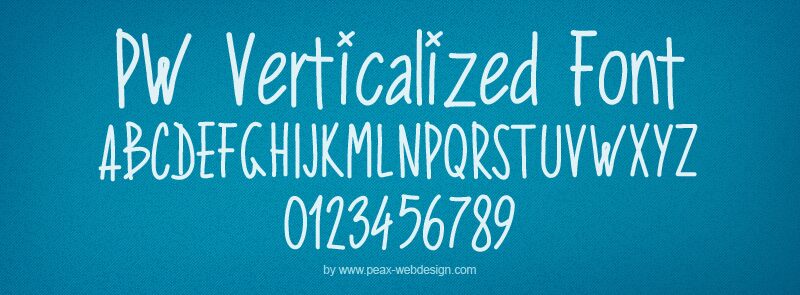
PW Verticalized by Peax Webdesign is a free handwritten display font with extremely tall, narrow letters, rounded bends, and an unusually loose monoline structure. Uneven joins and quirky crossbars keep the lanky forms visibly loose and quick.
Loose line drawings and doodled figures share the font's thin, wavering marks, making it a natural fit for illustrated posters and album artwork. It can also shape youth-oriented fashion branding, where the towering proportions resemble a custom marker-written logo. Festival graphics and informal cafe packaging offer two more convincing settings for its restless vertical forms.